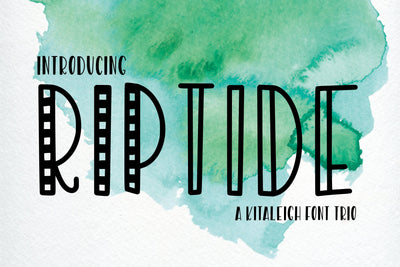
Rip Tide Stripe (Font Trio)
Fresh, clean font trio that is fantastic for adding interest to your projects. Closed, open, and stripe versions all included!